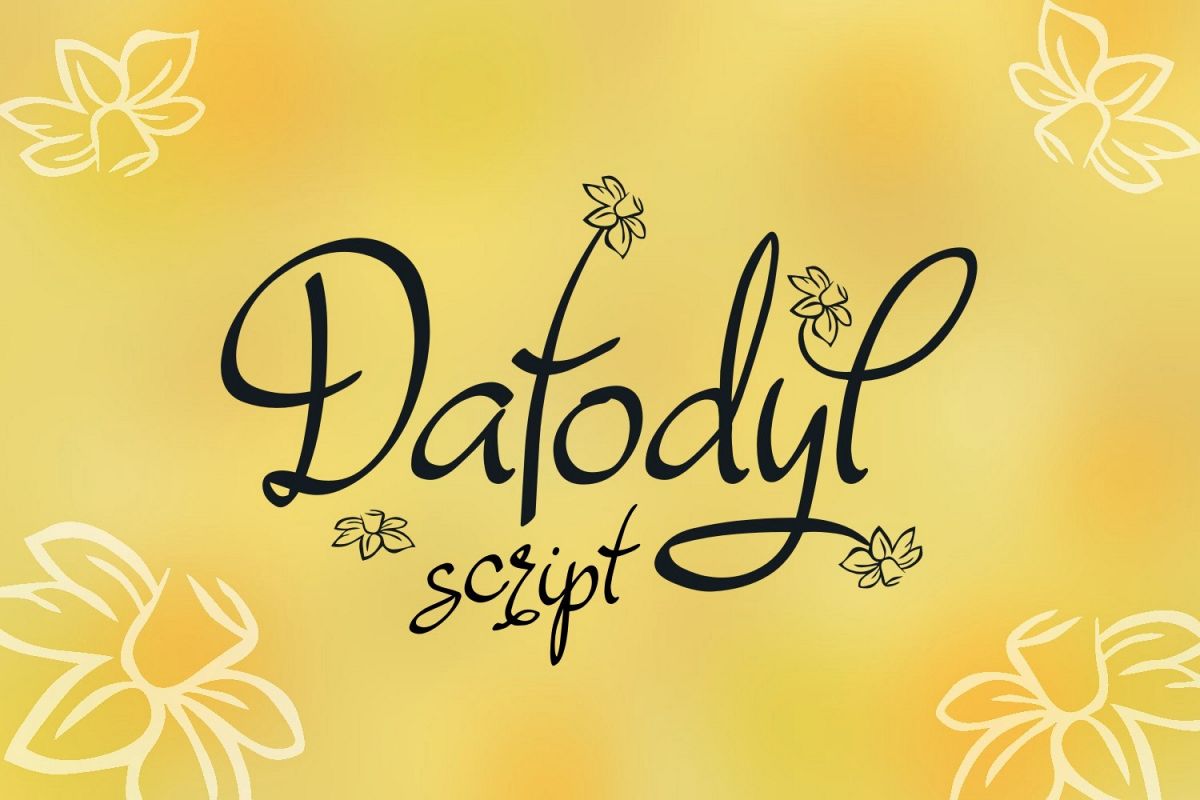
Dafodyl Font
Introducing Dafodyl handwritten typeface.
Great for cards and perfect for many craft area such as stencils, engraving, laser cutting and more!